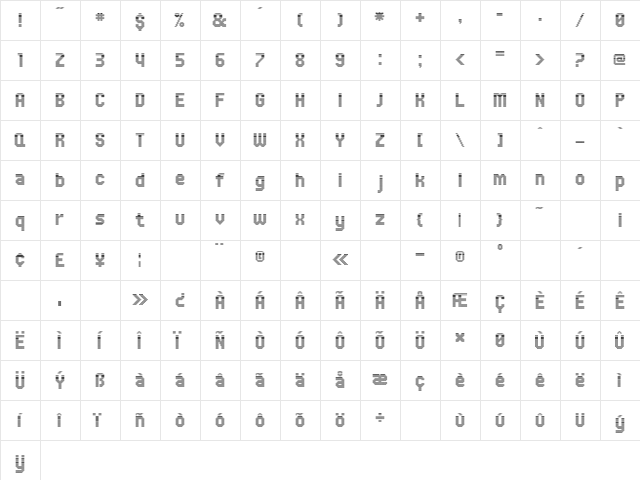
UNDACircle Regular Font Preview
UNDACircle Regular
Design Context for UNDACircle Typeface
UNDACircle is a composed and adaptable typeface that performs quietly and consistently across a wide range of design contexts.